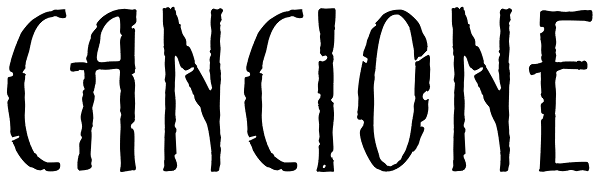
ITC Cancione
ITC Cancione is the inspired work of California calligrapher and illustrator Brenda Walton. She gave a rough texture to her tall, thin all caps alphabet and its ornaments, making them look as though they were drawn with a brush on stone and then...